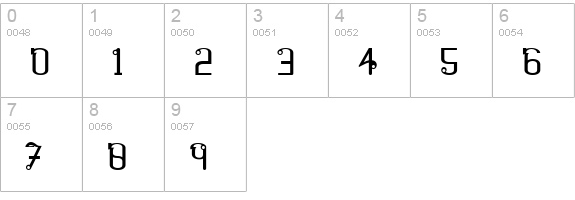
Farang Font Details
The Farang font is a modern and stylish typeface that exudes elegance and sophistication. Its sleek and clean lines make it perfect for a wide range of design projects, from branding to editorial design. With its unique geometric shapes and contemporary feel, Farang adds a touch of class to any project. What makes Farang even more appealing is that it is available for free download at FontsMarket.com. This means that you can easily access this beautiful font and use it in your projects without having to worry about any licensing fees. Whether you're a designer looking for a new typeface to add to your collection or a business owner in need of a fresh look for your branding, Farang is the perfect choice. Download it today and elevate your designs with this stunning and versatile font.